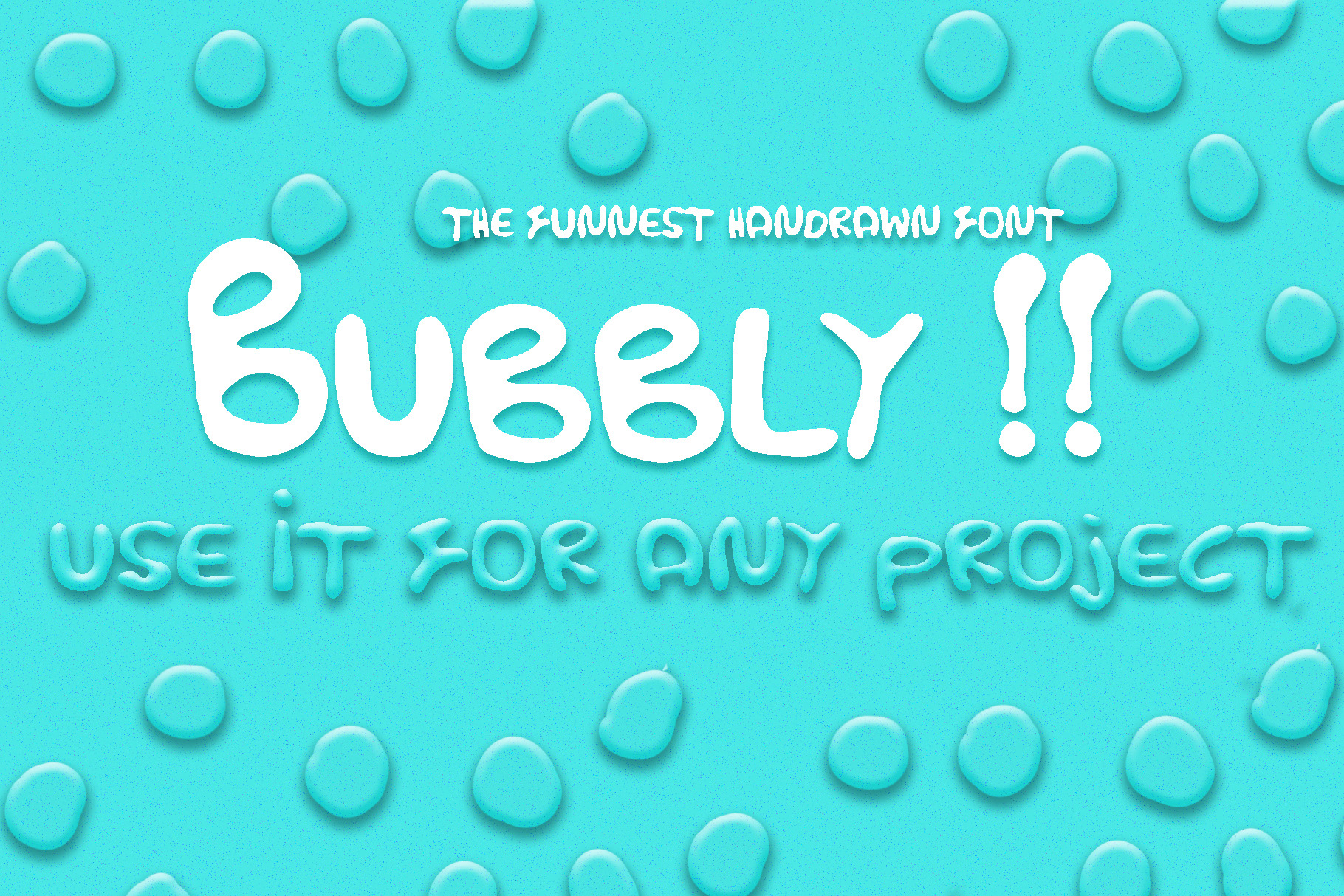
Bubbly font, is a fun and wet font!
Bubbly font is handrawn for your pleasure! A great thick and curvy font. You can use to make wet or liquid font with easy photoshop or other graphic softwares. let me .know if you need other special characters